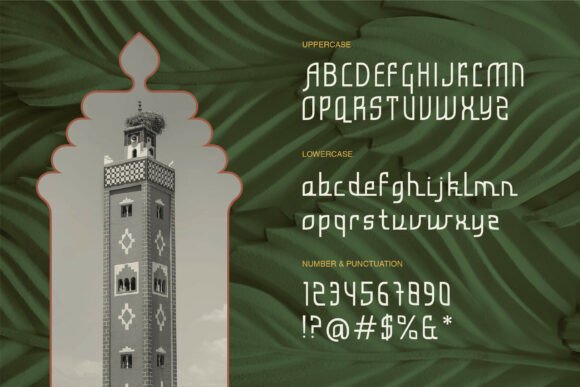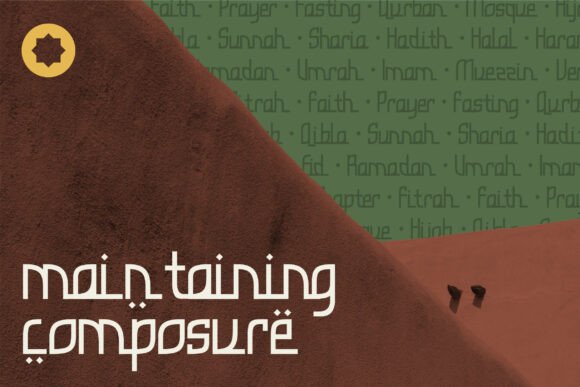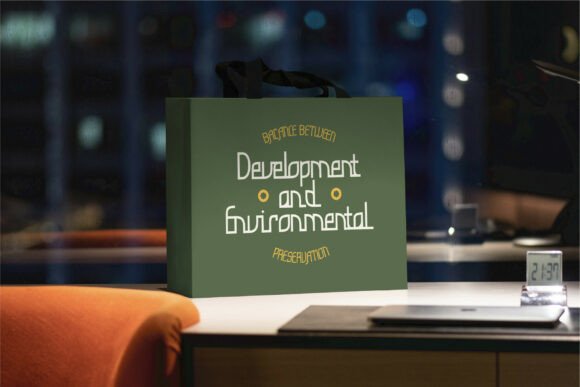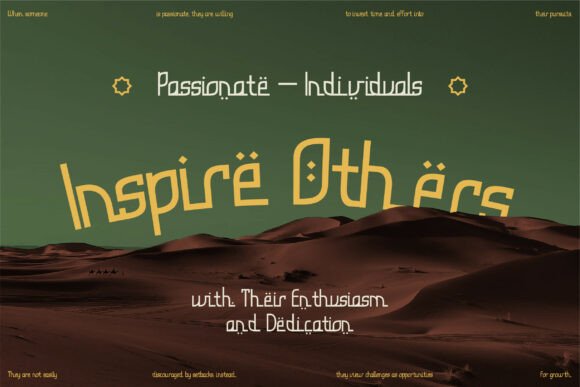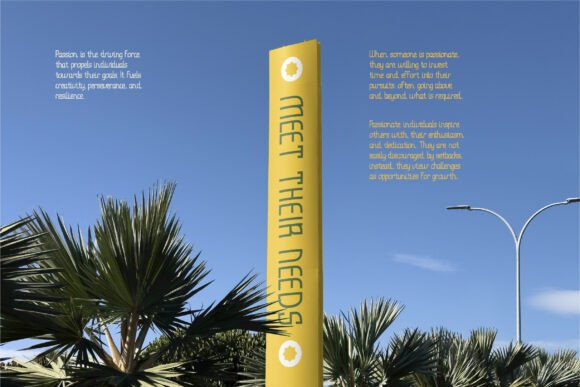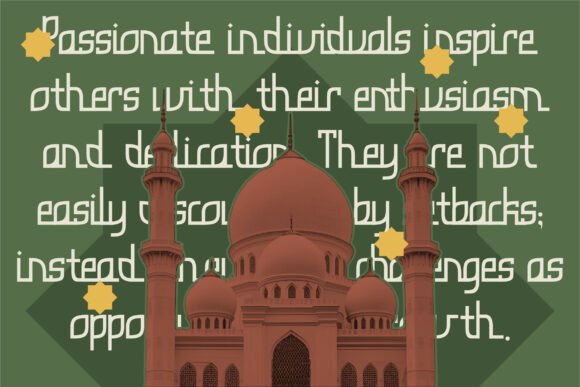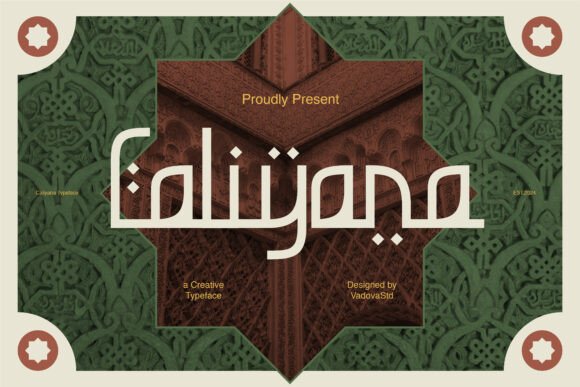
Discover the Elegance of Caliyana Font: A Modern Twist on Arabic Calligraphy
I’ll never forget the struggle I faced while working on a project to design a poster for a Ramadan celebration. My client wanted a font that would reflect the spiritual essence of the event, but I was stuck with the usual sans-serif fonts that just didn’t cut it. That’s when I stumbled upon Caliyana Font, a game-changer inspired by Arabic calligraphy and traditional Islamic architecture. In this article, I’ll share my experience with Caliyana, its features, and how to make the most of this beautiful font.
A Personal Review: What I Love and What I Don’t
- ✅ Unique and elegant design: Caliyana’s stylized Latin characters echo the shapes of Arabic script, making it perfect for designs that require a touch of cultural depth.
- ✅ Seamless blend of modern and traditional: This font effortlessly combines modern design with traditional Islamic architecture, making it versatile for various projects.
- ✅ Distinct ligatures and geometric flow: Caliyana’s features bring a sophisticated touch to logotypes, packaging, signage, and creative editorial projects.
The Not-So-Perfect Aspects 🤔
- ⚠️ Limited usage for body text: Caliyana is a display font, so it’s best used for headlines and titles rather than body text.
- ⚠️ Some characters may require manual adjustment: Depending on the project, you might need to tweak certain characters to achieve the perfect balance.
The Story Behind Caliyana: Designer Inspiration
Caliyana was designed with the goal of bridging cultural gaps through typography. The designer aimed to create a font that would reflect the elegance and sophistication of Arabic calligraphy while being versatile enough for modern designs. Inspired by traditional Islamic architecture and the flowing curves of Arabic script, Caliyana was born as a unique and modern display typeface.
Q: What is Caliyana Font best used for?
A: Caliyana Font is ideal for designs that require a touch of cultural depth and spiritual elegance, such as Ramadan and Eid designs, Islamic events, Middle Eastern branding, or mosque-related posters.
Q: Can I use Caliyana for body text?
A: While Caliyana is a beautiful font, it’s best used for headlines and titles rather than body text due to its display nature.